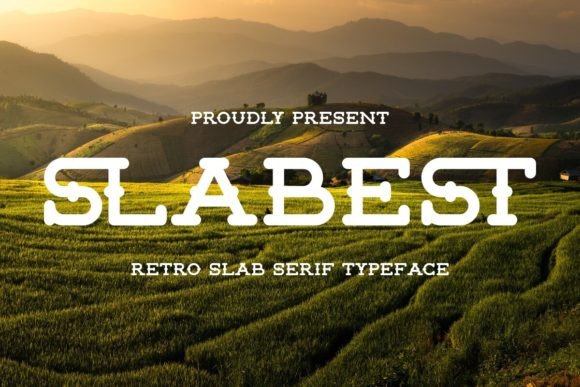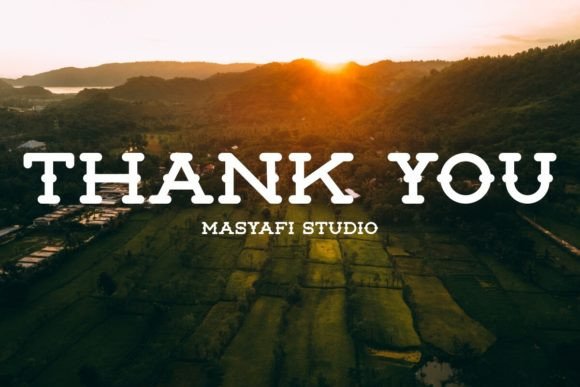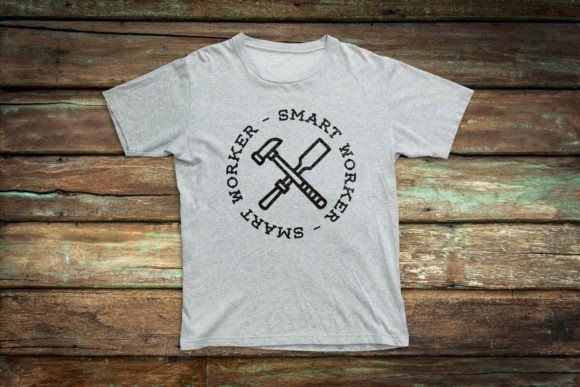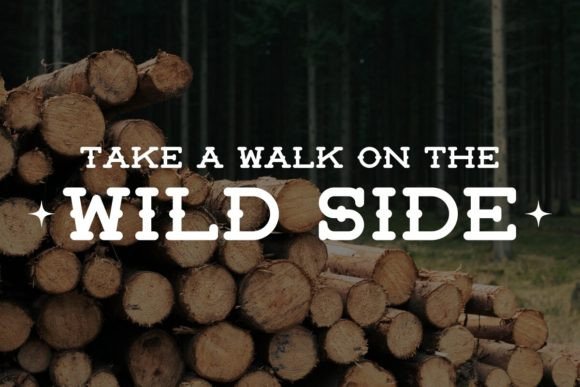
About Slabest Font
Slabest is an elegant and modern slab serif font. This minimalist and clean vibe can easily apply to your favorite designs such as book covers, magazines, social media posts, invitations, and so much more!